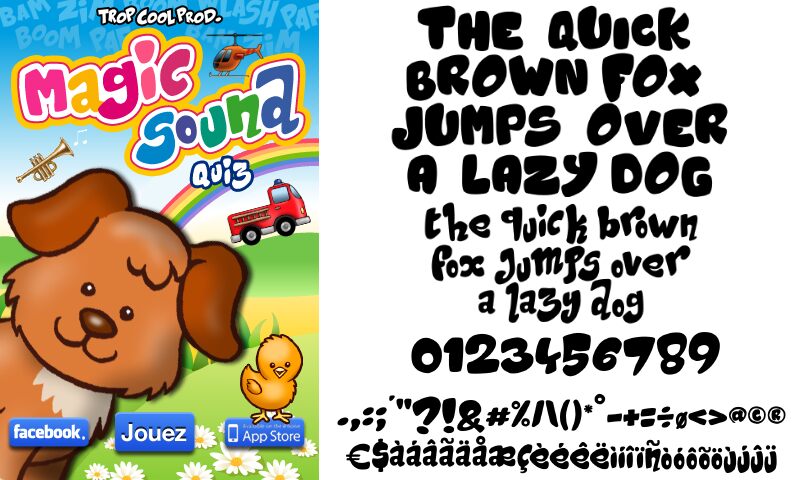
Magic Sound by Imagex is a free cartoon display font with hefty, rounded letters and an uneven silhouette. The shapes swell and pinch unpredictably, with small openings and soft corners that make the lettering look hand-cut. Each form seems to stand a little differently.
Its blobby contours echo character illustration, making it a natural fit for children's posters and animated titles. Music packaging can use the irregular bounce to suggest loud, comic movement. It also suits party invitations and cheerful merchandise, where lettering becomes part of the artwork.